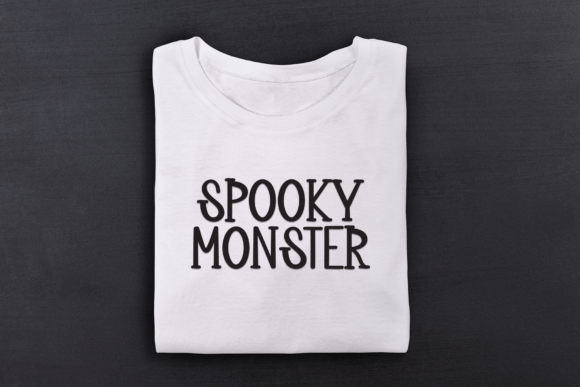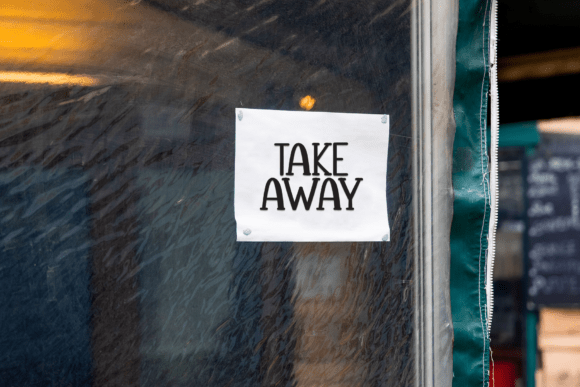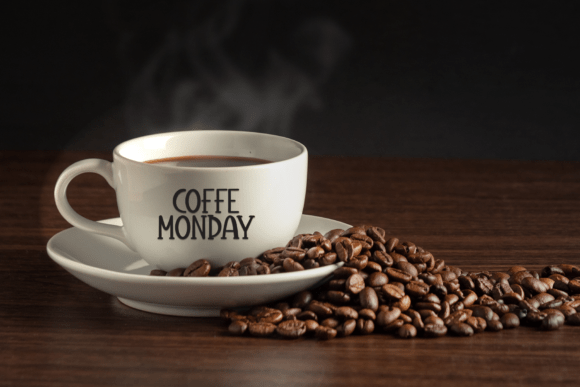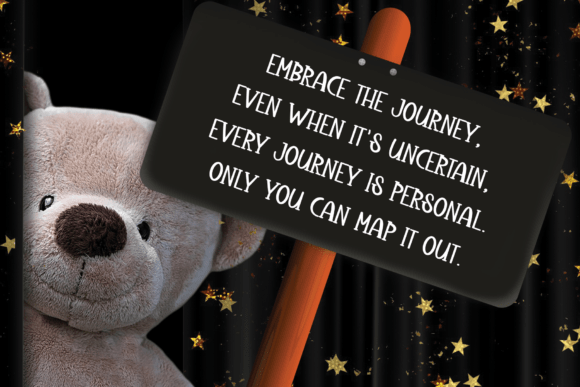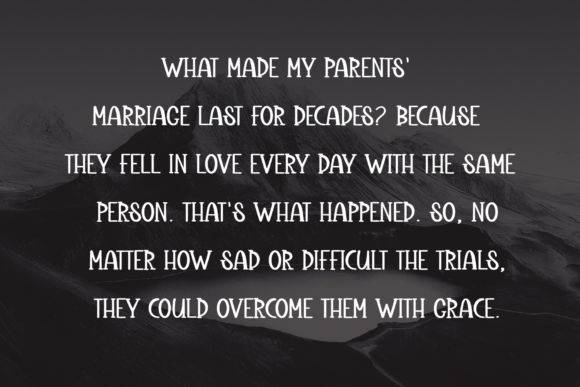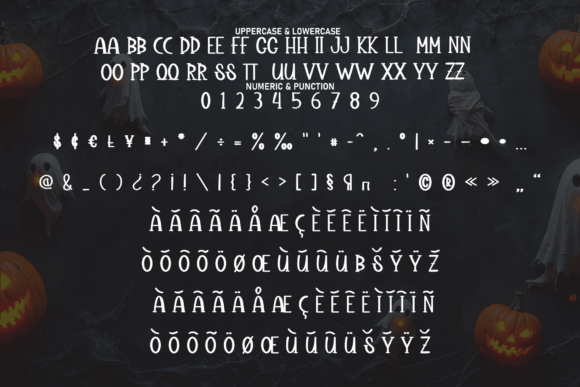
Happy Halloween Font: The Perfect Blend of Simplicity and Friendliness
As the spookiest time of the year approaches, designers and crafters are on the lookout for the perfect font to capture the essence of Halloween. Look no further than the Happy Halloween Font, a casual and neat display font that combines simplicity with a friendly, approachable vibe. In this article, we’ll dive into the features and benefits of this fantastic font, and explore how it can elevate your designs and crafts to the next level.
A Modern Handwritten Typographic Style
Happy Halloween Font boasts a modern handwritten typographic style that is both clean and polished. Featuring clean lines, balanced letterforms, and subtle rounded edges, this font is perfect for designers and crafters looking to add a touch of warmth and personality to their work. The font’s crisp structure and versatile style make it an excellent choice for a wide range of applications, from branding and headlines to packaging and digital content.
Key Features of Happy Halloween Font
• Clean Lines: Happy Halloween Font features clean lines that give it a modern and sleek appearance.
• Balanced Letterforms: The font’s balanced letterforms ensure that each character is perfectly proportioned, making it easy to read and visually appealing.
• Subtle Rounded Edges: The subtle rounded edges of the font give it a friendly and approachable feel, perfect for designs that require a personal touch.
• Versatile Style: Happy Halloween Font is a versatile font that can be used in a variety of contexts, from formal to informal designs.
Why Choose Happy Halloween Font?
So, why should designers and crafters choose Happy Halloween Font for their projects? Here are just a few reasons:
• Easy to Read: The font’s clean lines and balanced letterforms make it easy to read, even at small sizes.
• Highly Versatile: Happy Halloween Font can be used in a wide range of applications, from branding and advertising to packaging and digital content.
• Unique and Memorable: The font’s subtle rounded edges and modern handwritten style make it unique and memorable, perfect for designs that need to stand out.
• Perfect for Halloween-themed Designs: As the name suggests, Happy Halloween Font is perfect for Halloween-themed designs, but its versatility also makes it suitable for other projects and applications.
How to Use Happy Halloween Font in Your Designs
Happy Halloween Font is an incredibly versatile font that can be used in a wide range of design applications. Here are a few ideas to get you started:
• Branding: Use Happy Halloween Font to create a unique and memorable brand identity that reflects your company’s personality and values.
• Headlines: The font’s clean lines and balanced letterforms make it perfect for headlines and titles that need to grab attention.
• Packaging: Happy Halloween Font is a great choice for packaging designs that require a friendly and approachable feel.
• Digital Content: The font’s versatility and readability make it an excellent choice for digital content, such as blog posts, social media graphics, and email newsletters.
Tips for Getting the Most Out of Happy Halloween Font
To get the most out of Happy Halloween Font, here are a few tips to keep in mind:
• Experiment with Different Sizes: Happy Halloween Font is highly legible at a wide range of sizes, so don’t be afraid to experiment with different sizes to find the one that works best for your design.
• Pair it with Other Fonts: The font’s versatility makes it easy to pair with other fonts to create a unique and visually appealing design.
• Use it to Add Personality: Happy Halloween Font is a font that adds personality and warmth to any design, so don’t be afraid to use it to add a personal touch to your work.
In conclusion, Happy Halloween Font is an excellent choice for designers and crafters looking for a font that combines simplicity with a friendly, approachable vibe. With its clean lines, balanced letterforms, and subtle rounded edges, this font is perfect for a wide range of applications, from branding and headlines to packaging and digital content. Whether you’re creating Halloween-themed designs or just looking for a versatile font to add to your collection, Happy Halloween Font is a great choice.